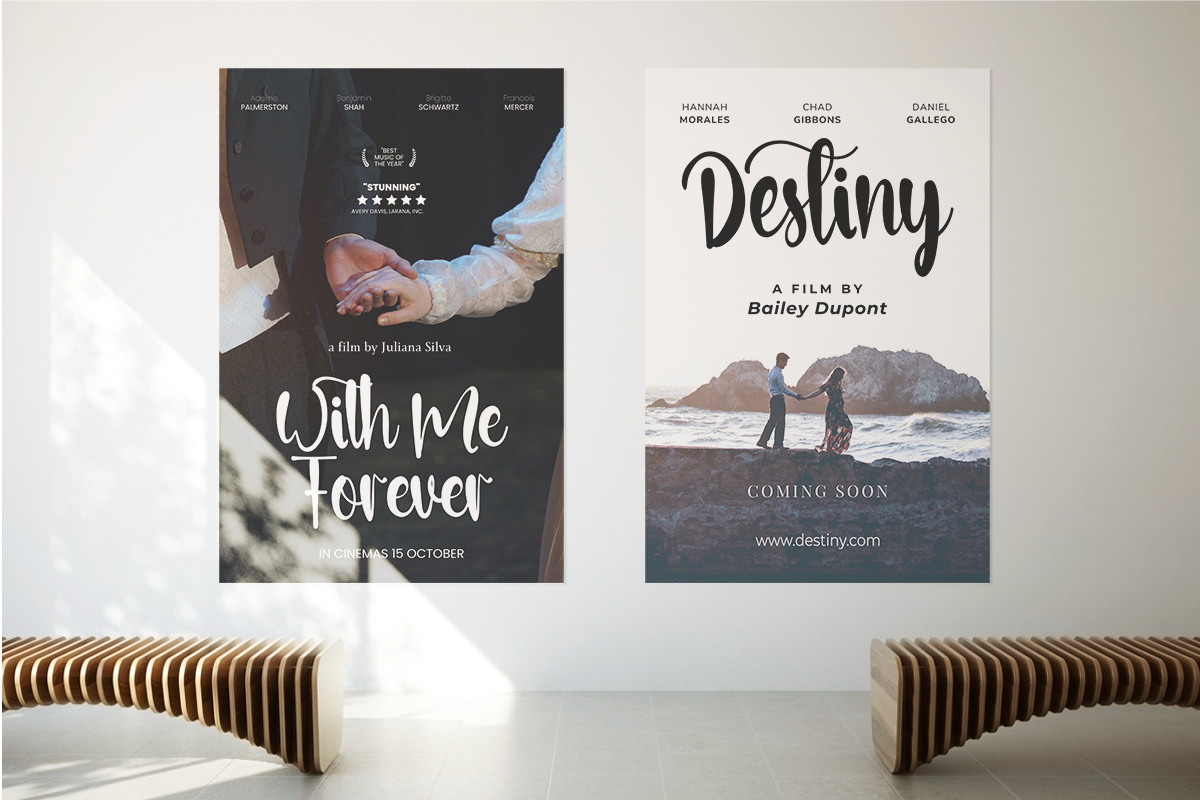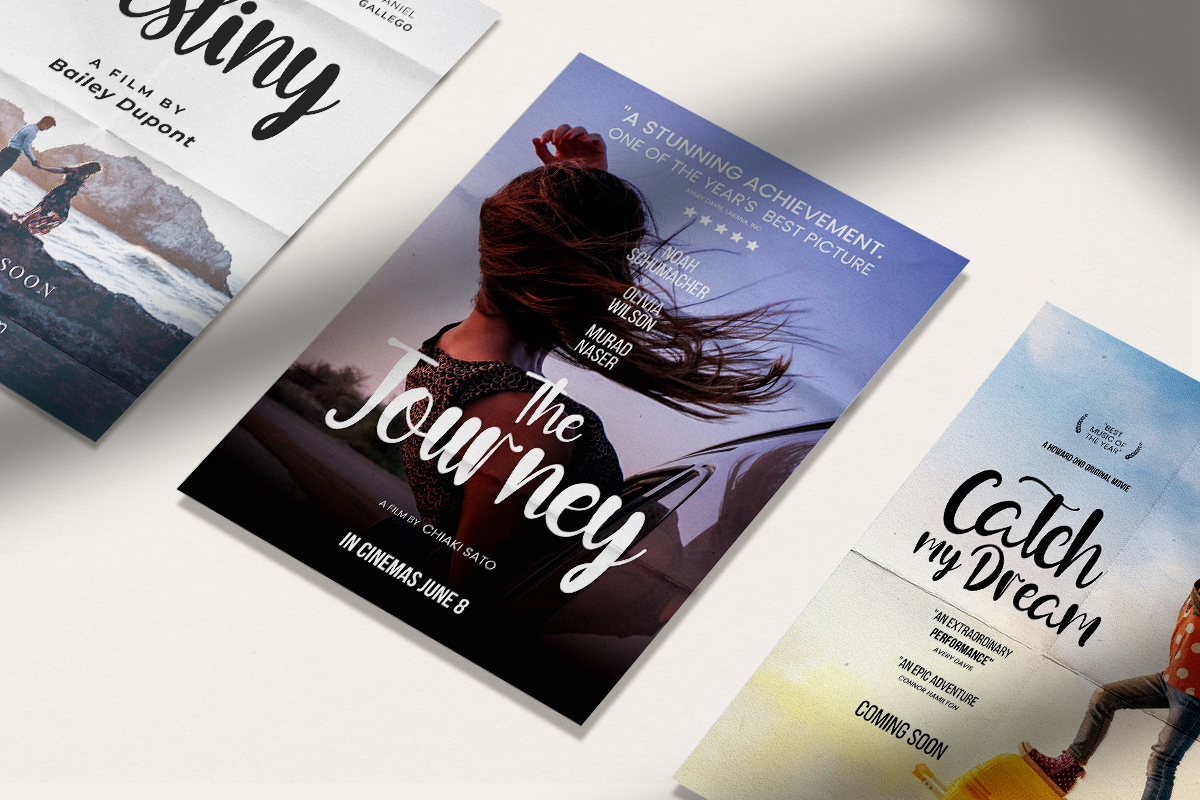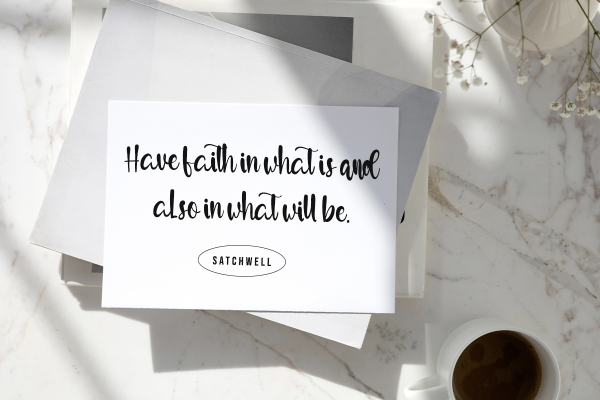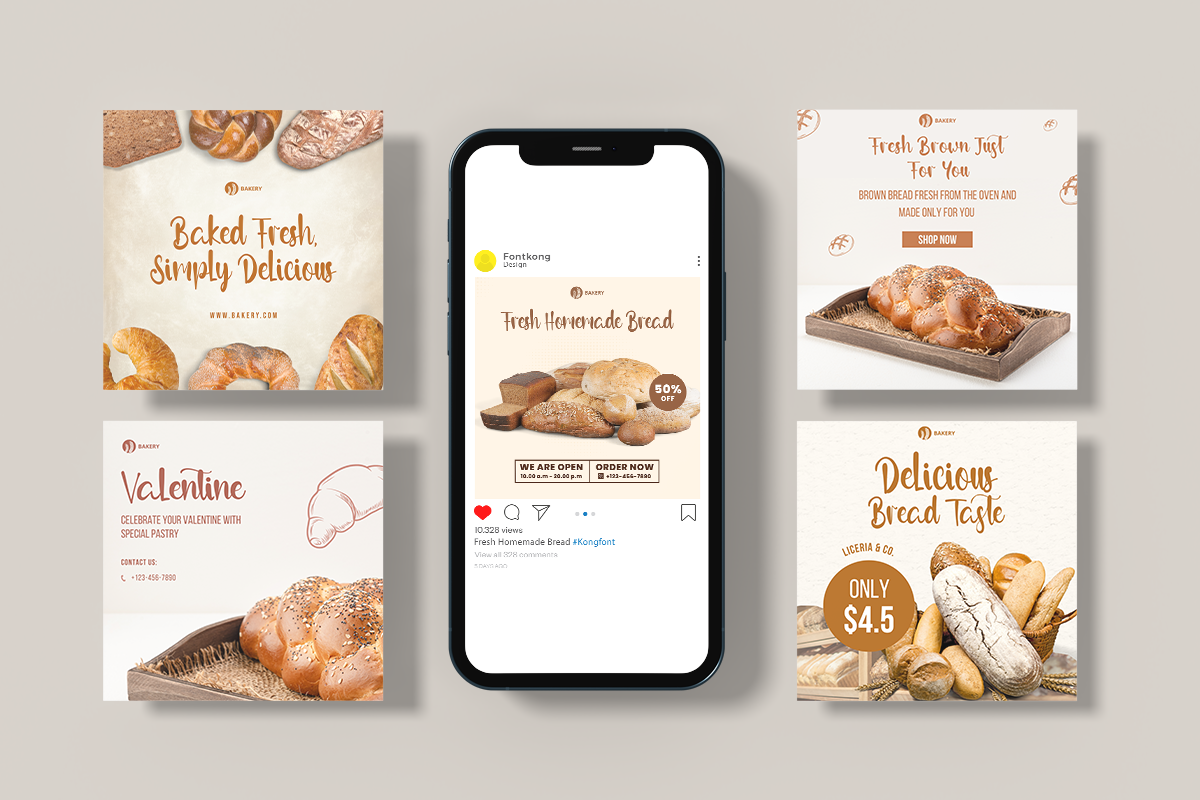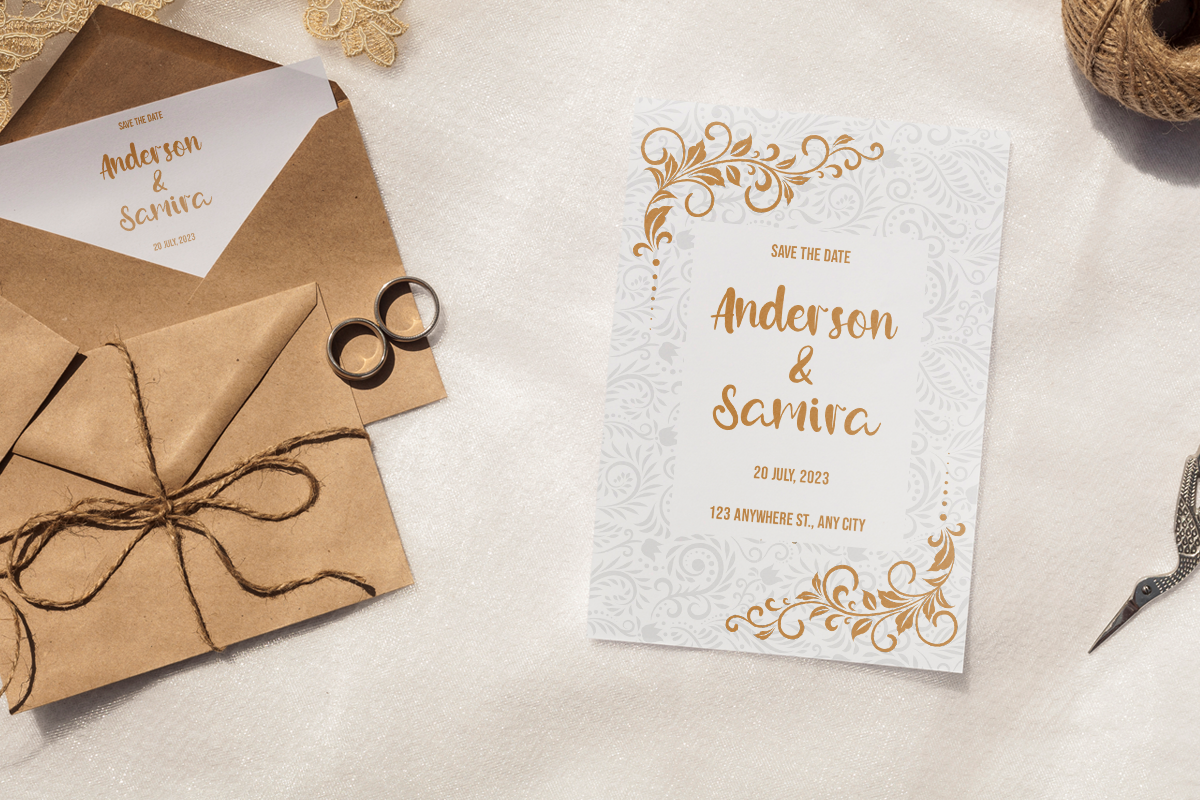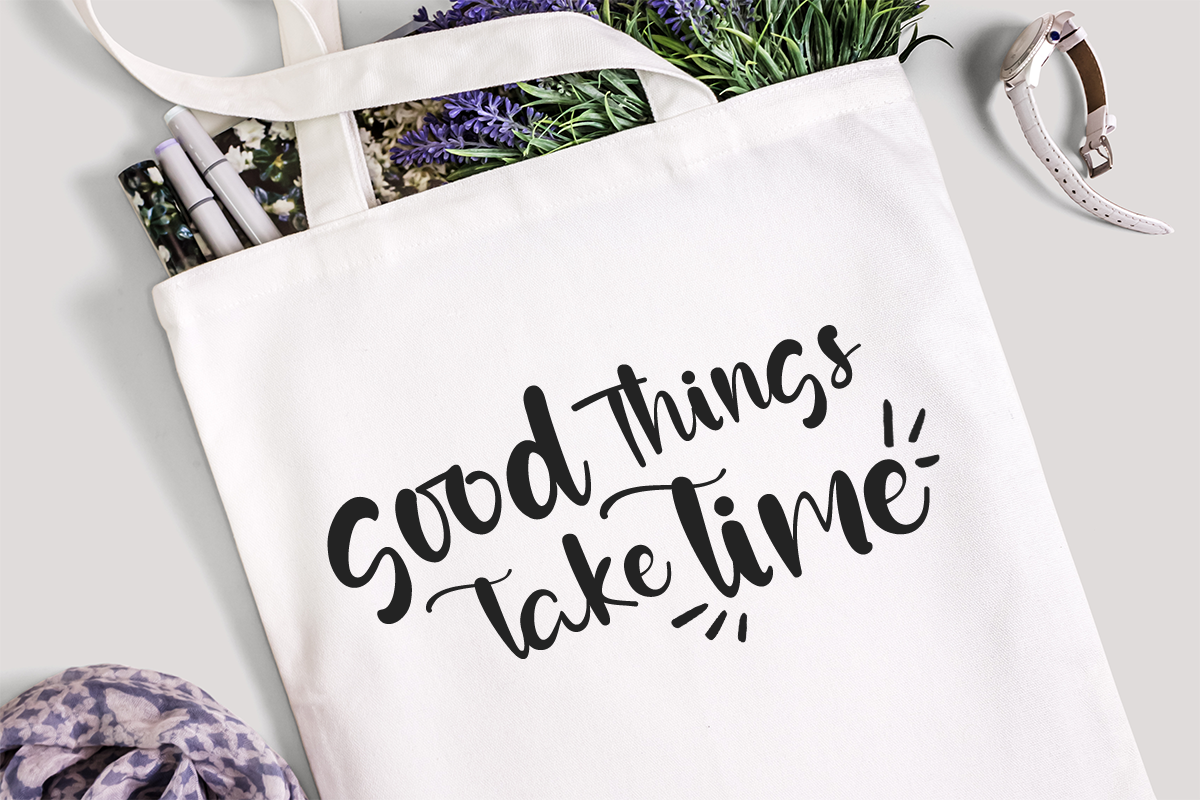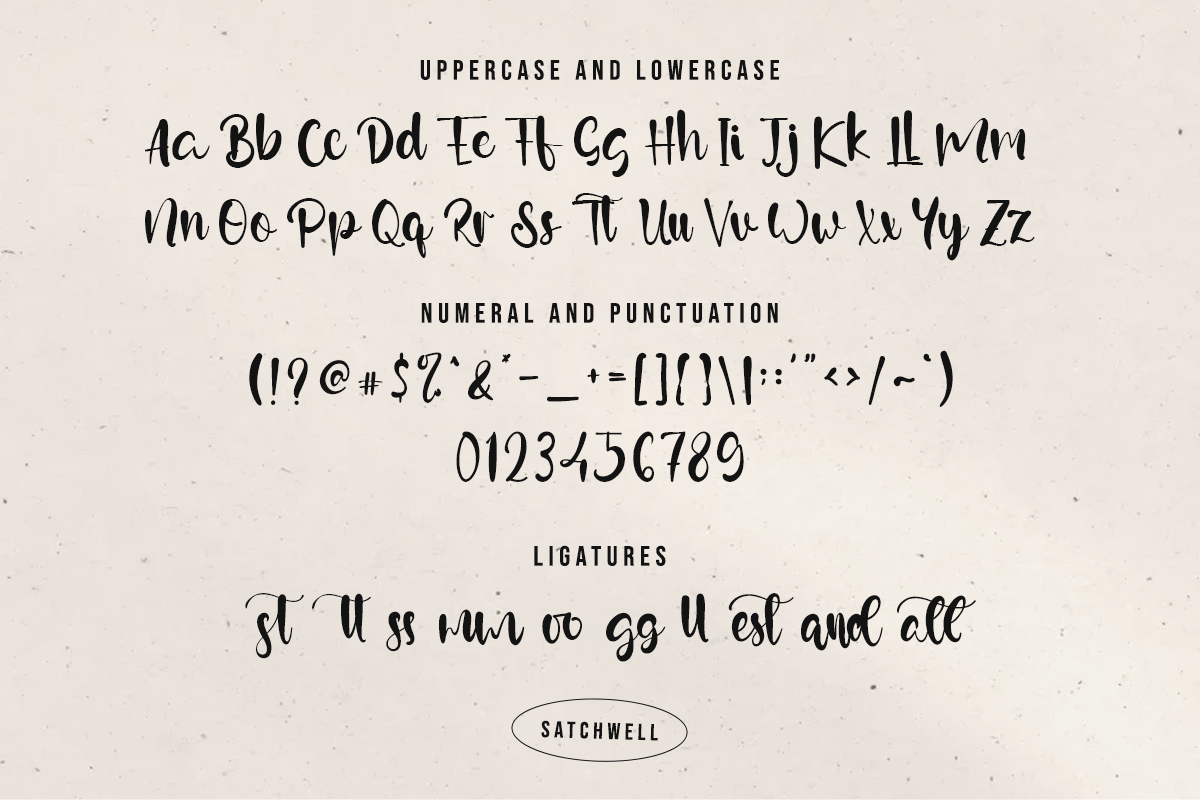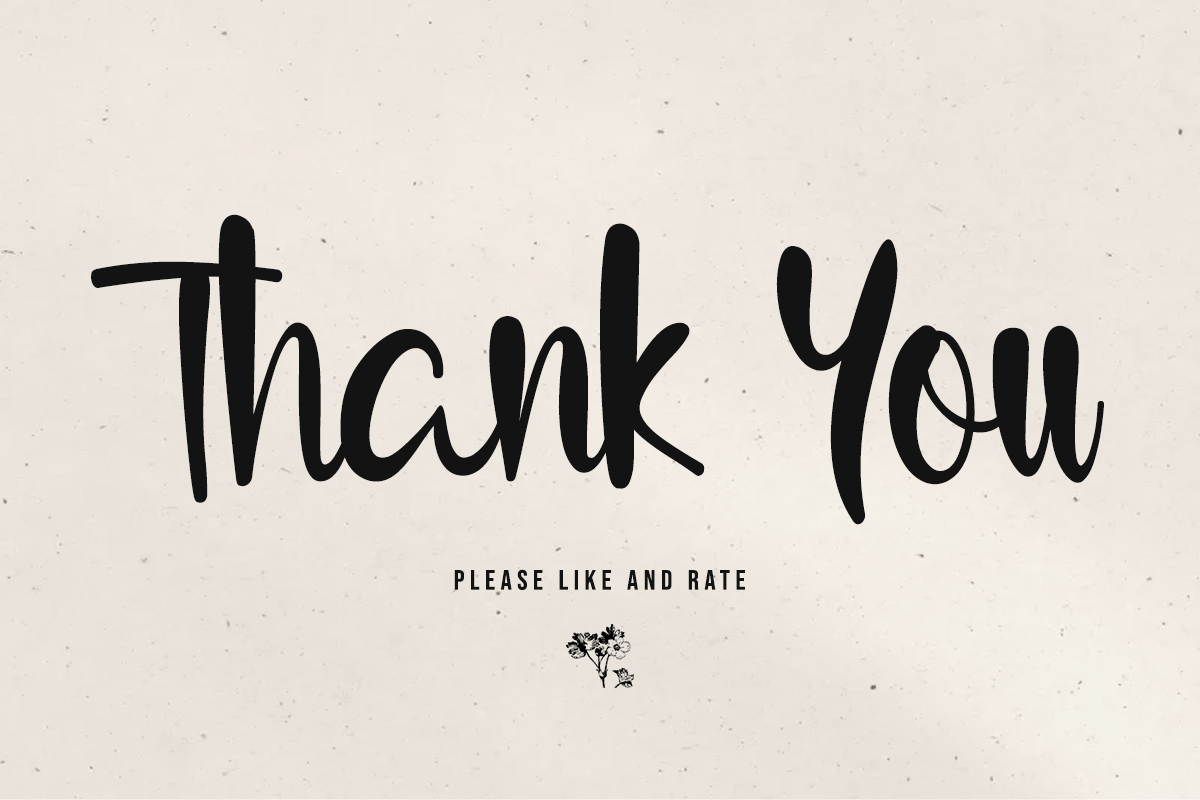
Satchwell Handwritten Font is here to bring something different for brush font enthusiasts. At first glance, this font is different from other brush font types in ordinary. Brush fonts usually have shadow characteristics or some sides are not fully painted by the brush, causing an empty side. But Satchwell showed a different side, which is fully painted by the brush with beautiful curves and without the slightest shadow. Looking at its shape, this font looks like it was written with a brush that was pressed first, causing a wider section and then being pulled to write the letter connections so that they have curved edges. Satchwell points out that brush fonts don't have blank shading to be considered perfect. He can be created with different shapes but still attractive to everyone who sees it. Satchwell font is suitable for both formal and semi-formal situations. It can be used as wedding supplies, such as invitations and name engravings on souvenirs. This font can also be used for an event poster with a casual theme. Satchwell is not suitable when used to write long sentences. It is more appropriate to use it as a title or headline. Entrepreneurs can use the Satchwell font for their product market. This font can be used as writing on a bag or poster promoting their product. In addition to printed posters, this font can complement product photo catalogs created for online promotion on social media, such as Instagram and Facebook. Our collection of brush fonts is compatible with use as Figma fonts, Canva fonts, Freepik Fonts, and Adobe Fonts]. They also work as Windows Fonts, and Apple Fonts. For your social media needs, you can use and install fonts in our collection of Brush fonts to use as Instagram Fonts, Facebook Fonts, and Twitter Fonts.